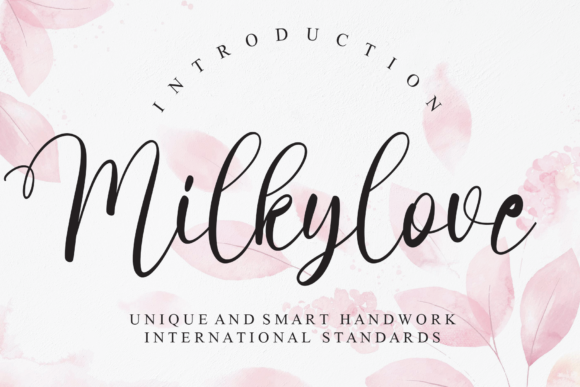
Introducing Milkylove Font - The Quintessential Script for Designers Seeking a Personal, Romantic Touch!
Welcome to the world of Milkylove Font, the captivating script font that's sure to bring an air of charm and elegance to your creative endeavors. Dive into a realm of delightful swirls, delicate strokes, and graceful curves that dance harmoniously together, creating a visual symphony that will leave you spellbound.
Unleash your imagination and let Milkylove's enchanting characters adorn your designs, whether it be for wedding invitations, love letters, branding projects, or social media posts. Its innate ability to evoke a sense of nostalgia and romance makes it the perfect choice for any occasion that calls for a touch of heartfelt emotion.
Immerse yourself in the beauty of Milkylove's vertical orientation, a distinctive feature that adds a touch of whimsy and charm to your creations. Arrange the letters vertically, allowing them to flow effortlessly down the page like a cascade of falling stars. This unique orientation lends itself perfectly to logos, posters, and other vertical design elements.
With Milkylove Font by your side, you'll discover endless possibilities for creative expression. Its versatility extends beyond vertical applications, making it a valuable asset for a wide range of design projects. From headers and titles to quotes and paragraphs, Milkylove effortlessly adds a touch of sophistication and charm to any text.
Elevate your designs to new heights with Milkylove, the script font that embodies grace, romance, and heartfelt emotions. Join the ranks of satisfied designers who have discovered the magic of Milkylove and let your creativity soar to new heights. Experience the joy of creating designs that resonate with your audience, leaving an unforgettable impression that lingers long after the final stroke is drawn.